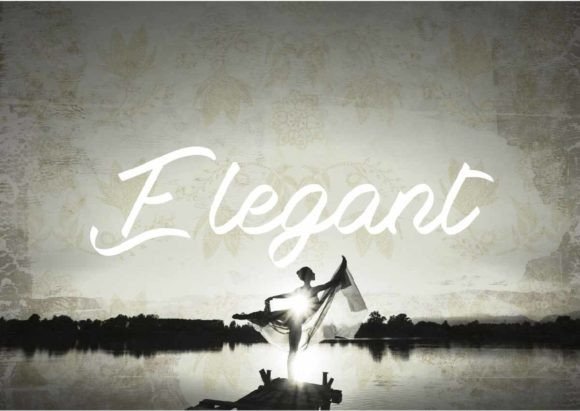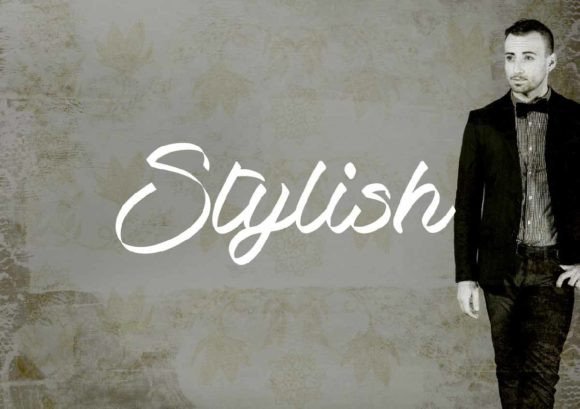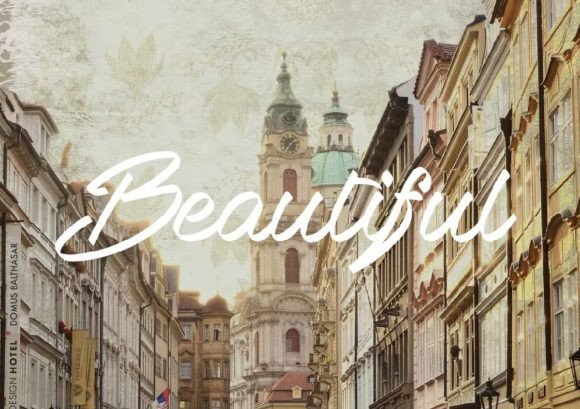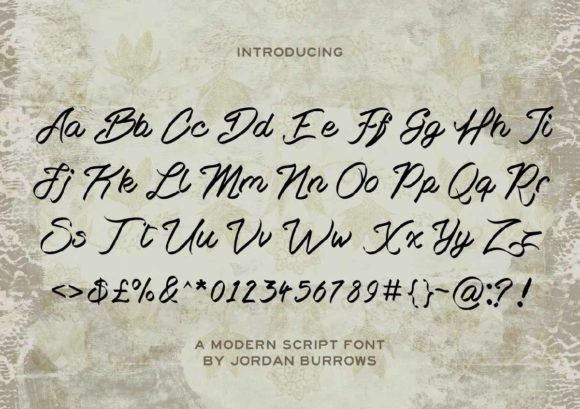
Introducing Antonia Script Font: Elevate Your Designs with Elegance and Flair
In the world of typography, script fonts hold a special place for their ability to add a touch of elegance, sophistication, and personality to any design. Among the myriad of script fonts available, Antonia Script Font stands out for its unique blend of elegance and free-flowing style, making it an excellent choice for designers and crafters looking to add a stylish and delicate touch to their projects.
What Makes Antonia Script Font Special?
Antonia Script is an elegant and free-flowing script font that boasts complimentary brush strokes and excellent links, ensuring a smooth and cohesive look across various applications. This font is meticulously designed to bring a sense of luxury, charm, and refinement to any design it is part of. Whether you’re working on wedding cards, wall art, greeting cards, logos, or any other project that demands a high level of sophistication, Antonia Script Font is up to the task.
Ideal Applications for Antonia Script Font
The versatility of Antonia Script Font makes it suitable for a wide range of design projects. Here are some of the ideal applications where this font truly shines:
• Wedding Cards and Invitations: The elegant and delicate nature of Antonia Script makes it perfect for wedding-related designs, adding a romantic and sophisticated touch.
• Wall Art and Typography: For designers looking to create stunning wall art or typographic prints, Antonia Script offers a stylish and eye-catching solution.
• Greeting Cards: Whether it’s for a birthday, anniversary, or any other occasion, this font adds a personal and heartfelt touch to greeting cards.
• Logos and Branding: For businesses aiming to establish a brand identity that exudes elegance and sophistication, Antonia Script Font can be a valuable asset.
Why Designers and Crafters Love Antonia Script Font
Designers and crafters appreciate fonts that not only look beautiful but also offer ease of use and flexibility. Antonia Script Font checks all these boxes and more:
• Elegance: Its elegant and flowing script style adds a touch of class to any project.
• Free-Flowing: The font’s design ensures a natural flow, making it easy to read and visually appealing.
• Complimentary Brush Strokes: The unique brush strokes give the font a handcrafted feel, perfect for designs that require a personal touch.
• Good Links: The connectivity of the letters ensures a smooth and harmonious look, essential for creating cohesive and professional designs.
How to Use Antonia Script Font Effectively
To make the most out of Antonia Script Font, consider the following tips:
• Pair with Complementary Fonts: For maximum impact, pair Antonia Script with simple, sans-serif fonts to create a balanced and visually appealing design.
• Adjust Size and Color: Experiment with different sizes and colors to find the perfect combination that suits your design.
• Use in Combination with Images: The elegant nature of Antonia Script makes it an excellent choice for overlaying on images or using alongside illustrations.
Antonia Script Font is a versatile and elegant script font that offers designers and crafters a powerful tool to elevate their designs. Its unique combination of complimentary brush strokes, good links, and a free-flowing style makes it perfect for a wide range of applications, from wedding cards and wall art to logos and greeting cards. By incorporating Antonia Script Font into your design projects, you can add a touch of sophistication, elegance, and personal flair that sets your work apart.
Whether you’re a professional designer or a crafter looking to add a special touch to your creations, Antonia Script Font is definitely worth exploring. Its ability to bring a sense of luxury and refinement to any project makes it a valuable addition to any design toolkit.